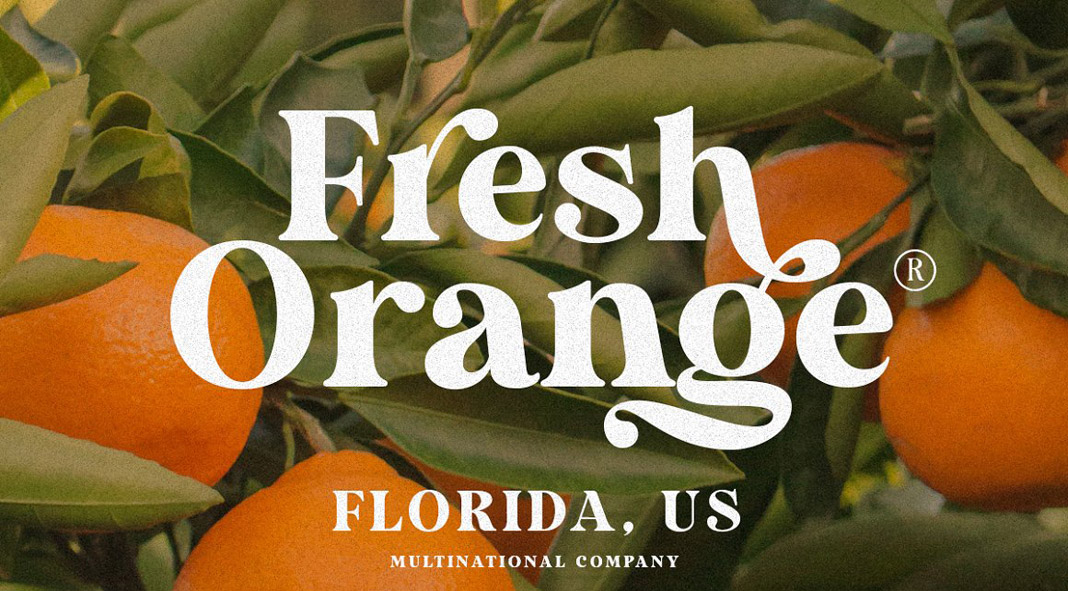
Duke Charming, a bold serif typeface created by Letterhend Studio.
Carefully designed by the team of Letterhend Studio, Duke Charming is a bold serif font that combines modern typography with the charming appearance of vintage lettering. The font comes with plenty of stylistic alternates and ligatures to give your typographic work a unique look and feel.